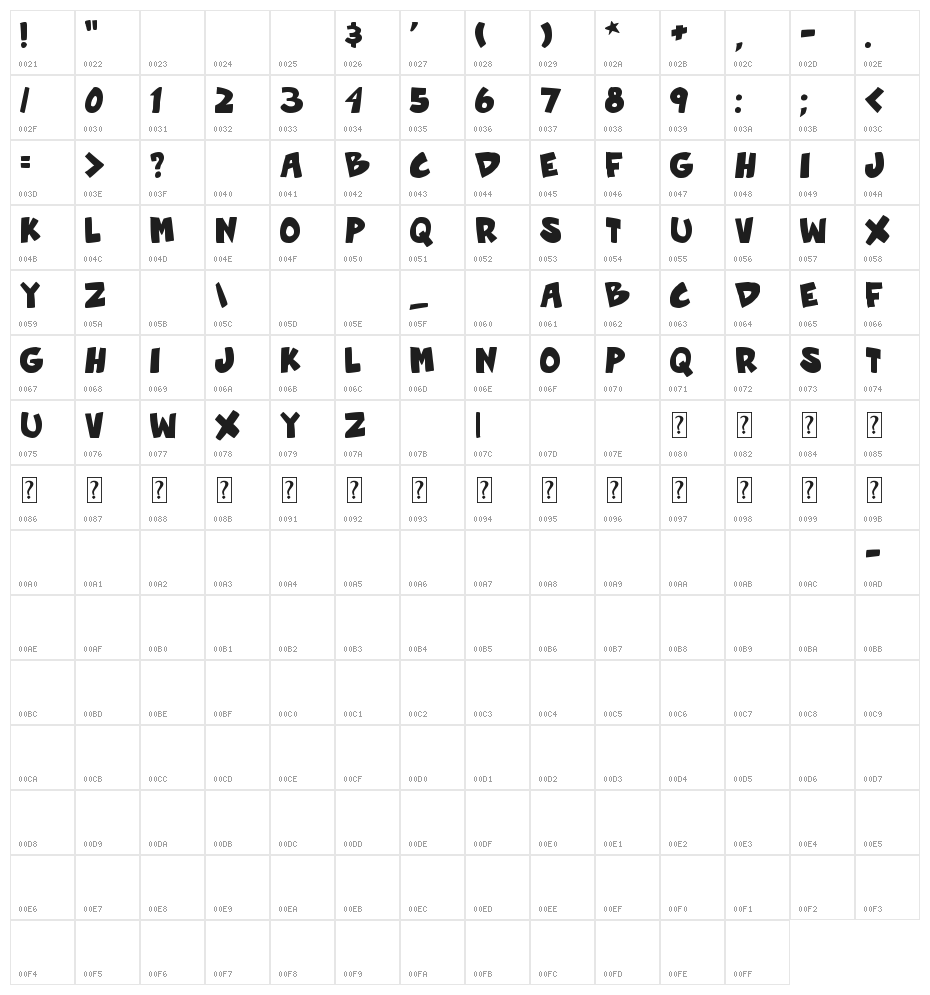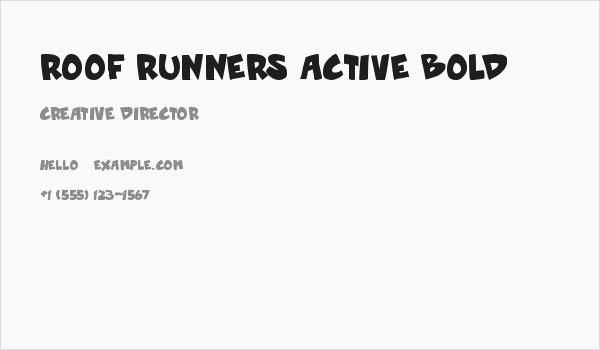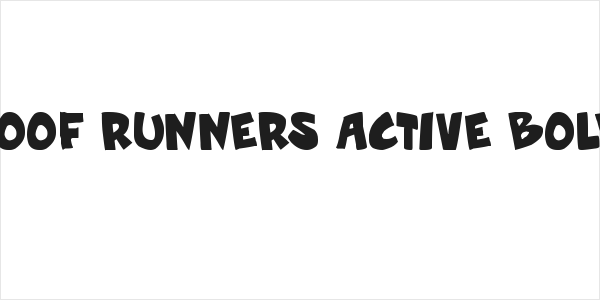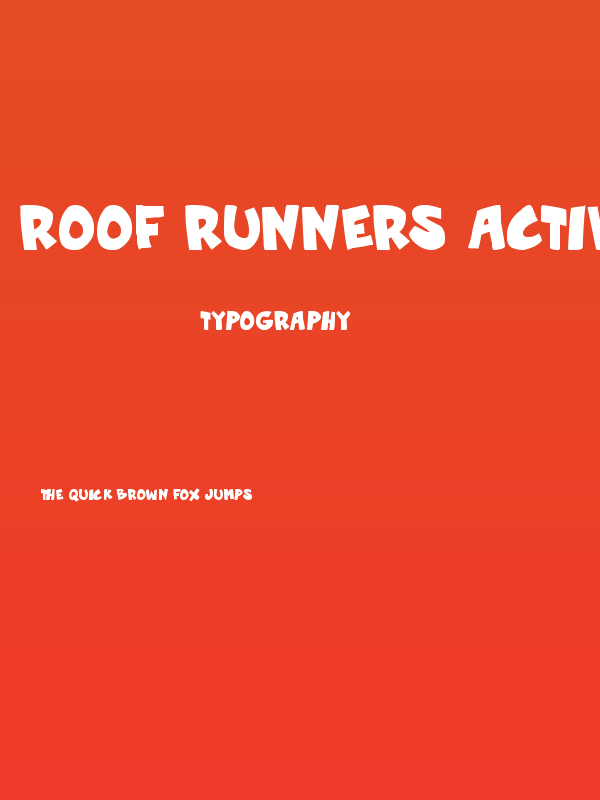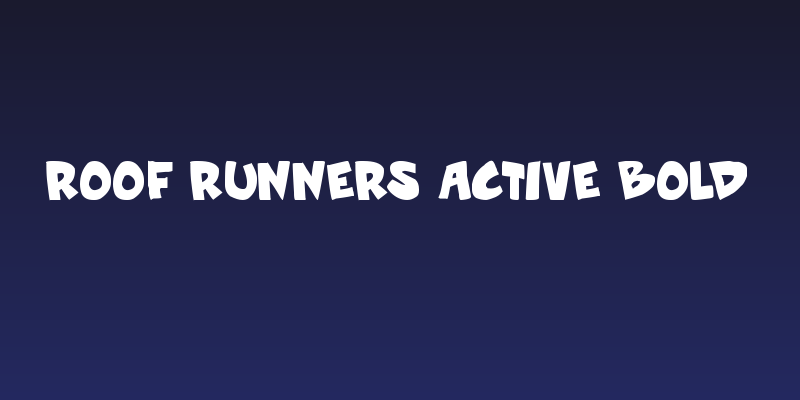
Roof runners active Bold Font
Roof runners active Bold Description
This font features a bold, playful style with exaggerated curves and a dynamic, energetic appearance. The characters are thick and rounded, giving them a cartoonish and friendly feel. The uppercase and lowercase letters maintain a consistent weight, contributing to a cohesive look. The numbers and special characters follow the same design principles, ensuring uniformity across all glyphs. The font's boldness and unique character shapes make it stand out, ideal for projects that require a fun and engaging visual impact.
| Overall Style | Playful, Cartoonish, Energetic |
| Proposed Projects | Ideal for children's books, comic strips, playful branding, and eye-catching posters. |